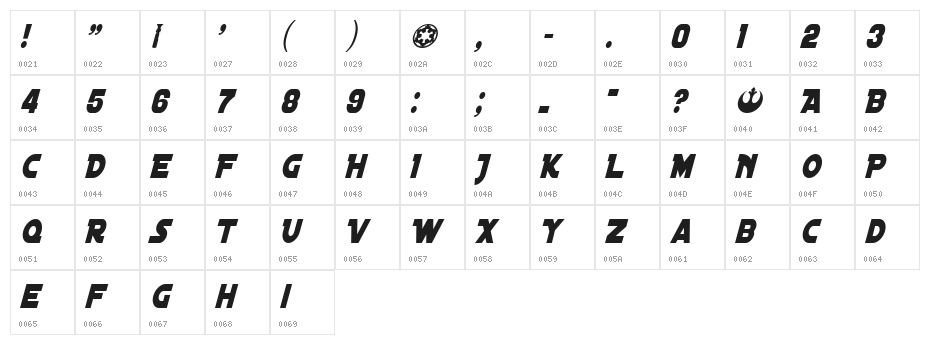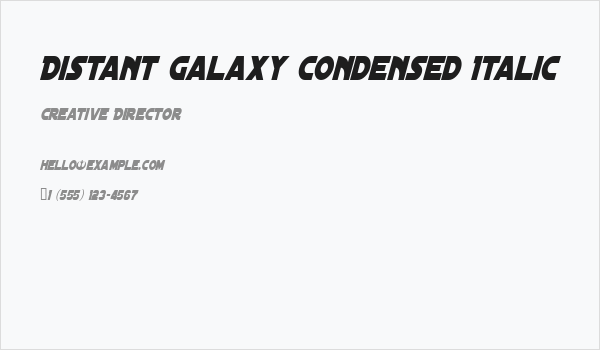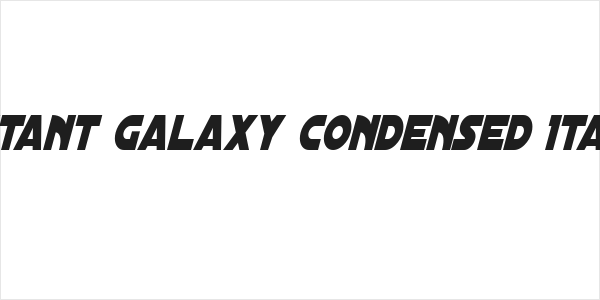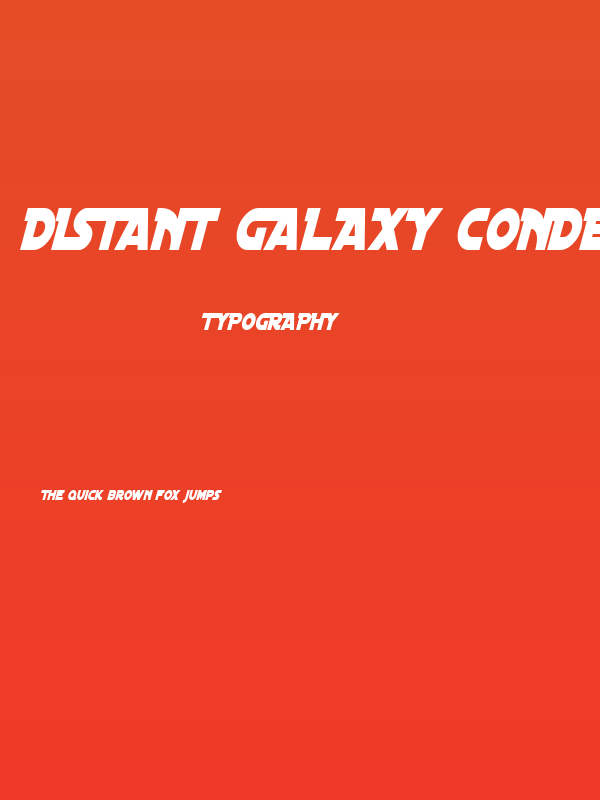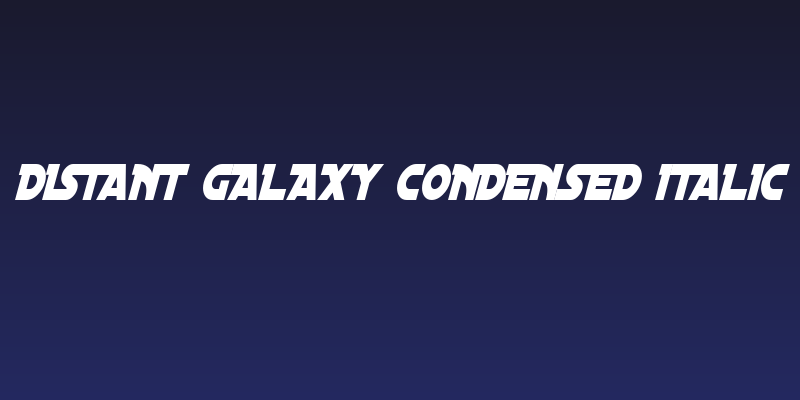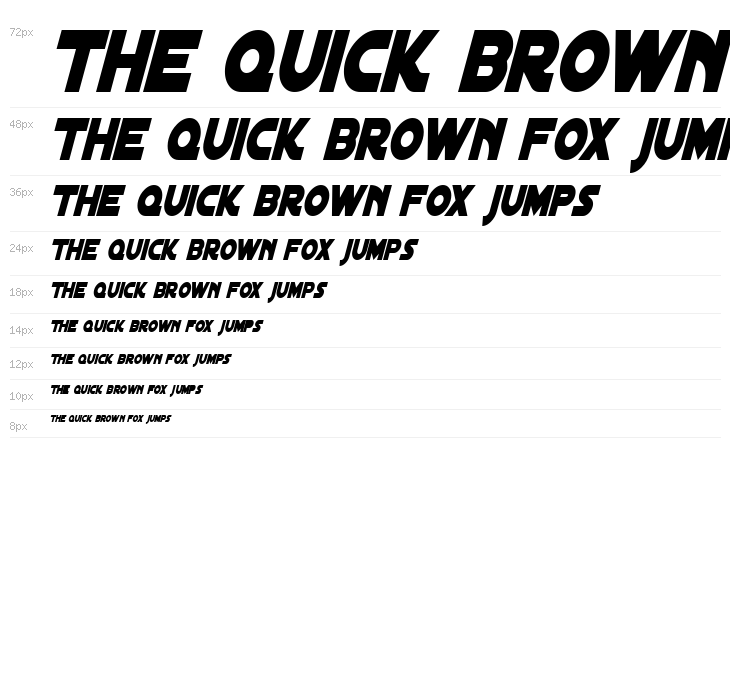
Distant Galaxy Condensed Italic Font
Distant Galaxy Condensed Italic Description
This font features a bold, italicized style with a futuristic and dynamic appearance. The characters are condensed, giving them a compact and powerful look. The strokes are thick and consistent, providing a strong visual impact. The angular cuts and sharp edges contribute to its modern and energetic feel, making it suitable for attention-grabbing designs. The font maintains a uniform weight throughout, ensuring readability while adding a sense of movement and speed. Its unique style is reminiscent of sci-fi themes, making it ideal for projects that require a bold and adventurous aesthetic.
| Proposed Projects | Ideal for sci-fi themed posters, video game titles, movie credits, and branding for tech companies. |